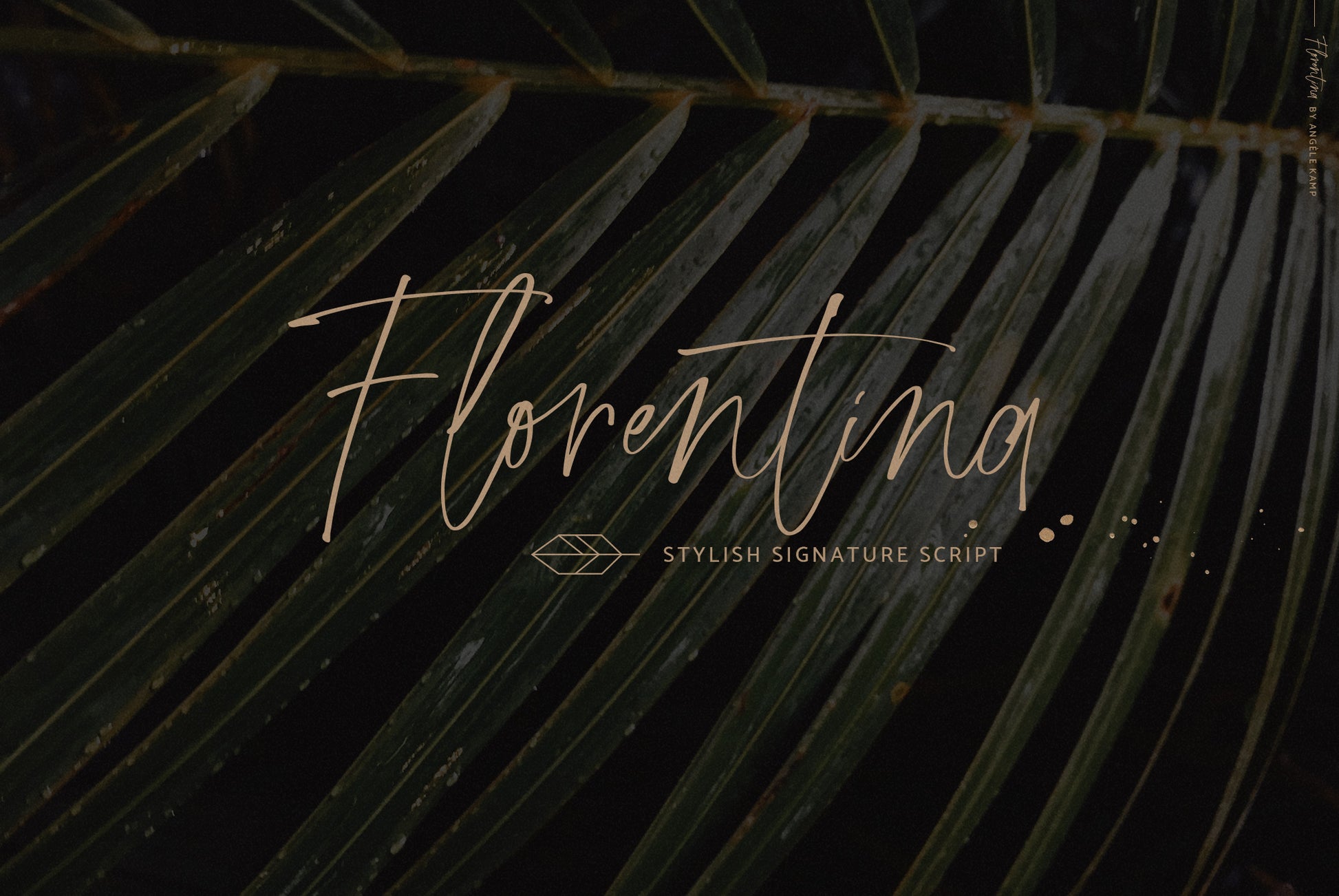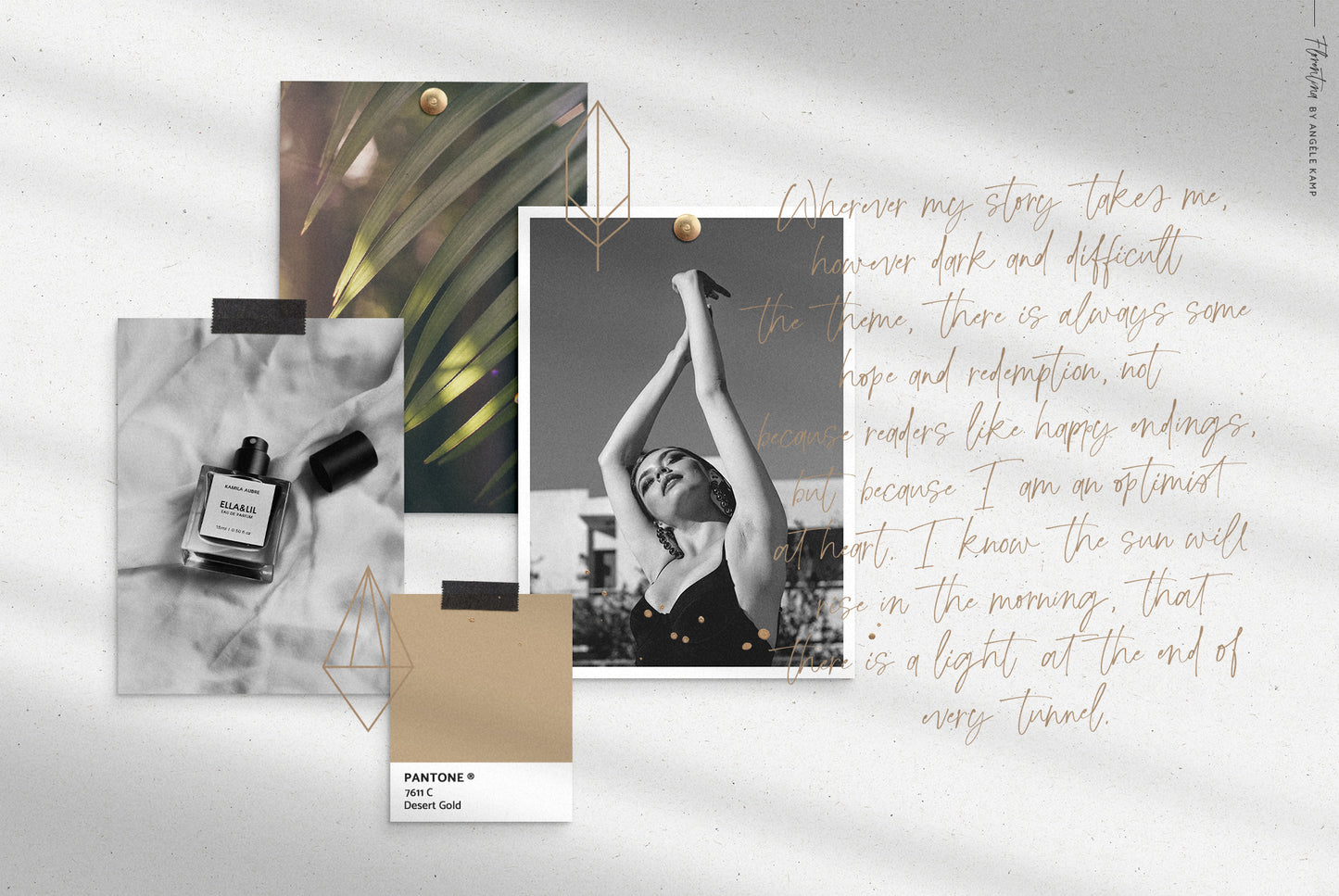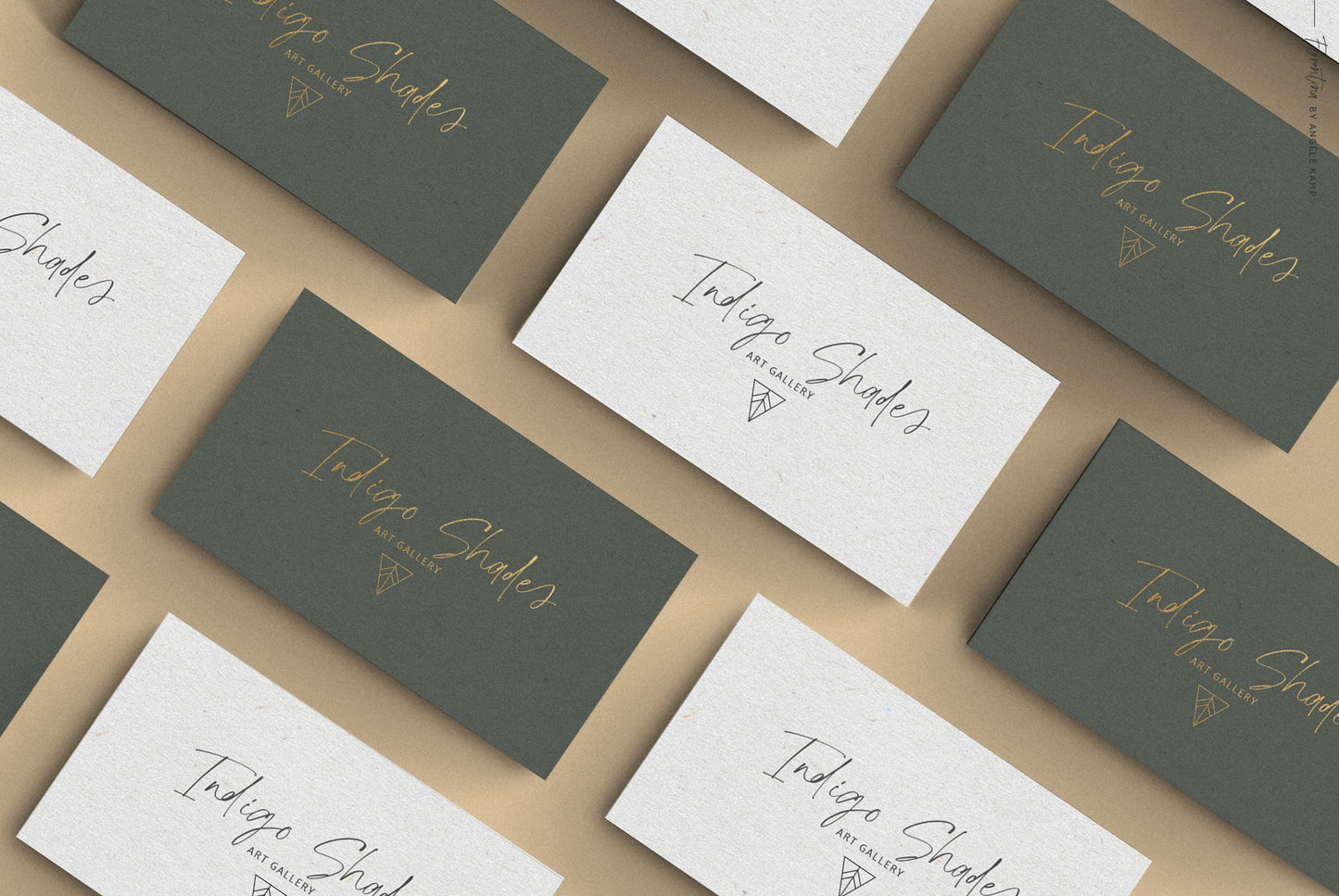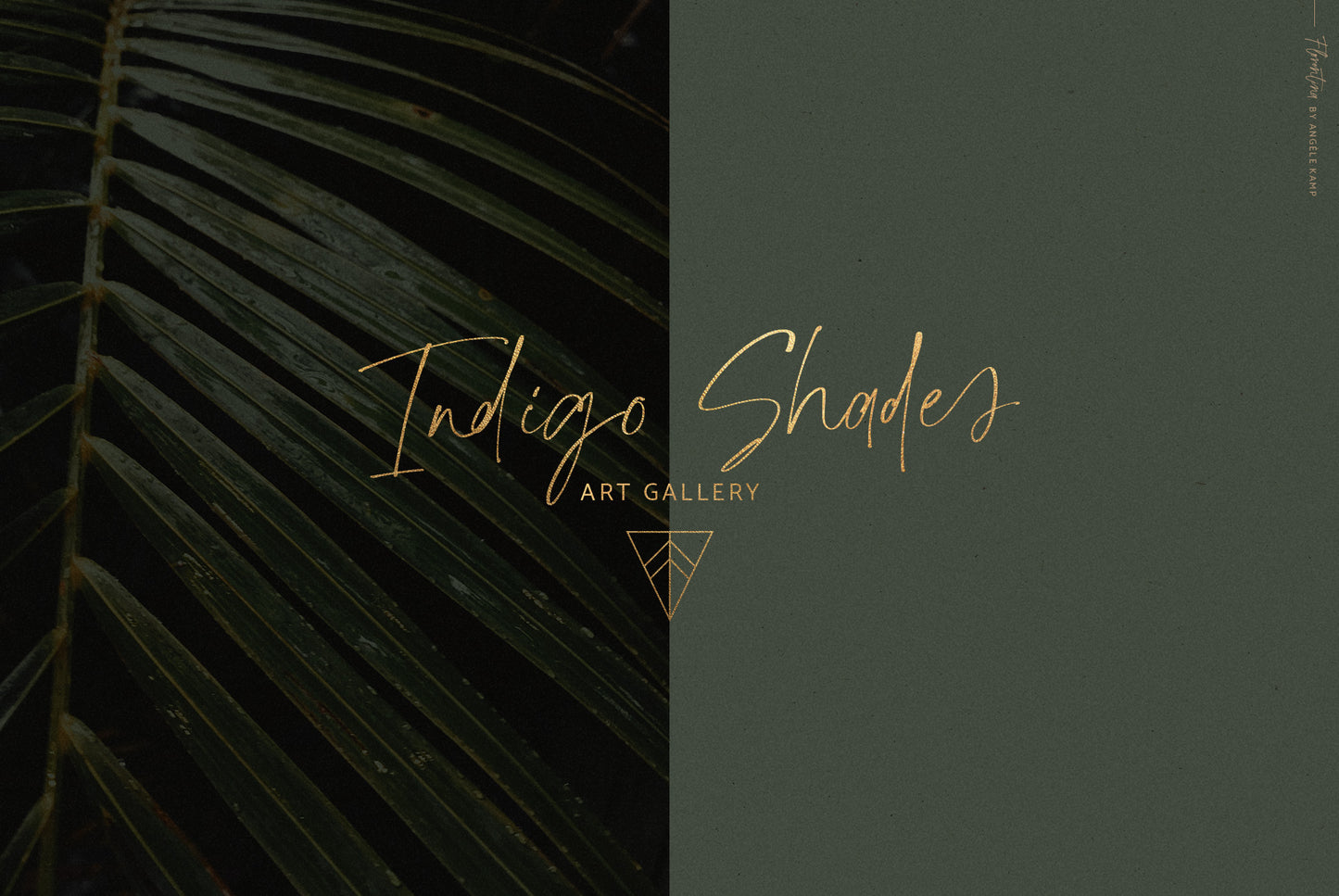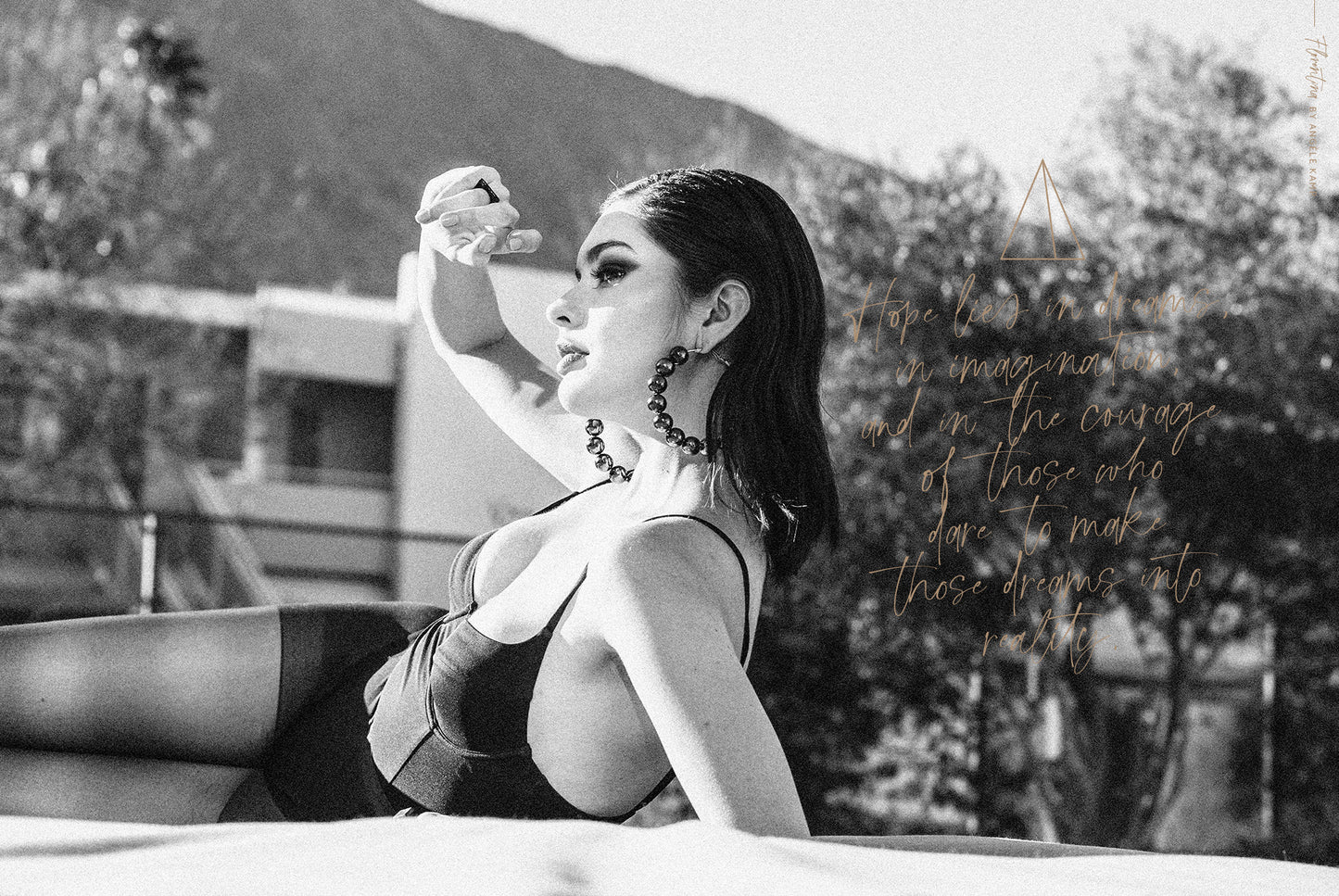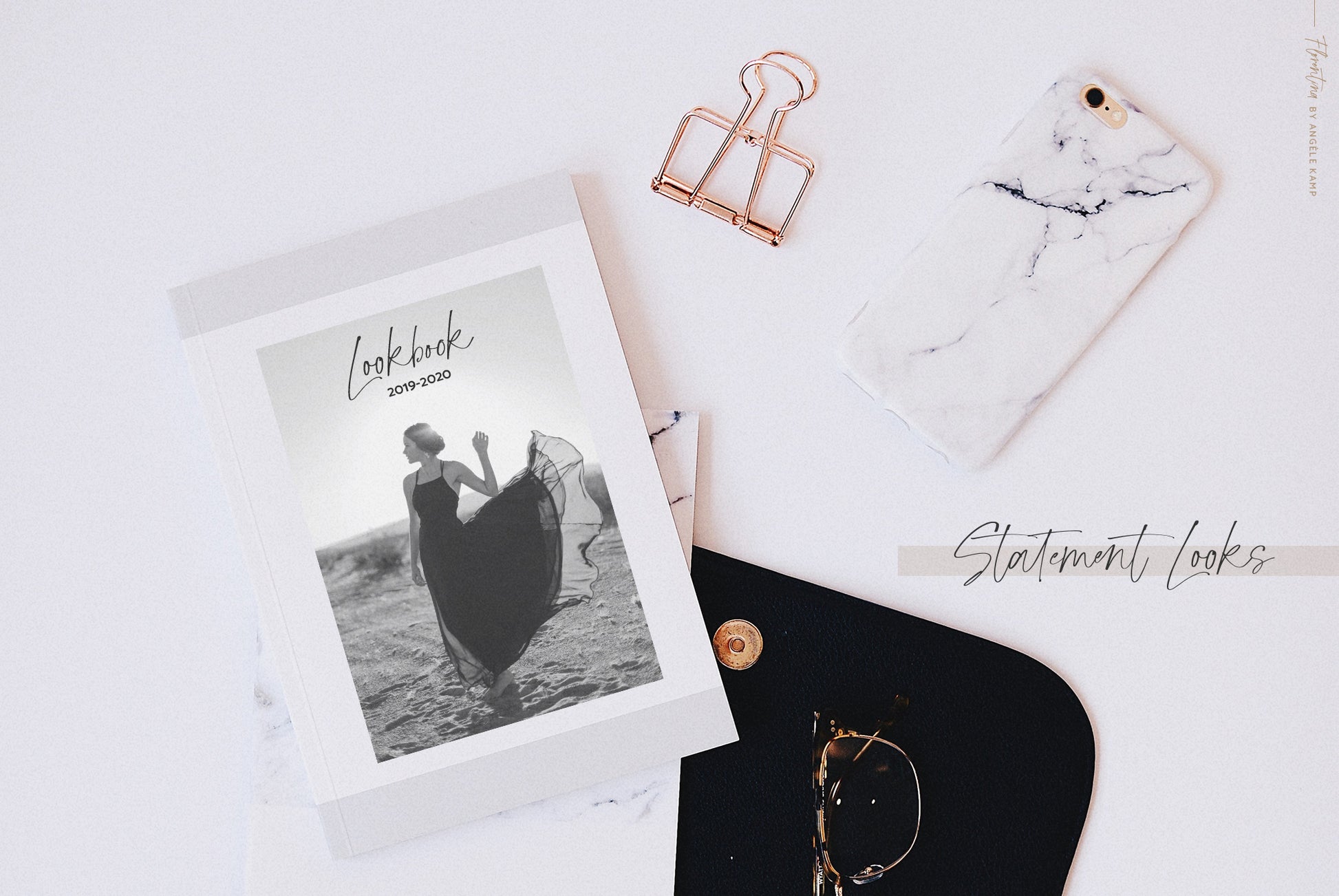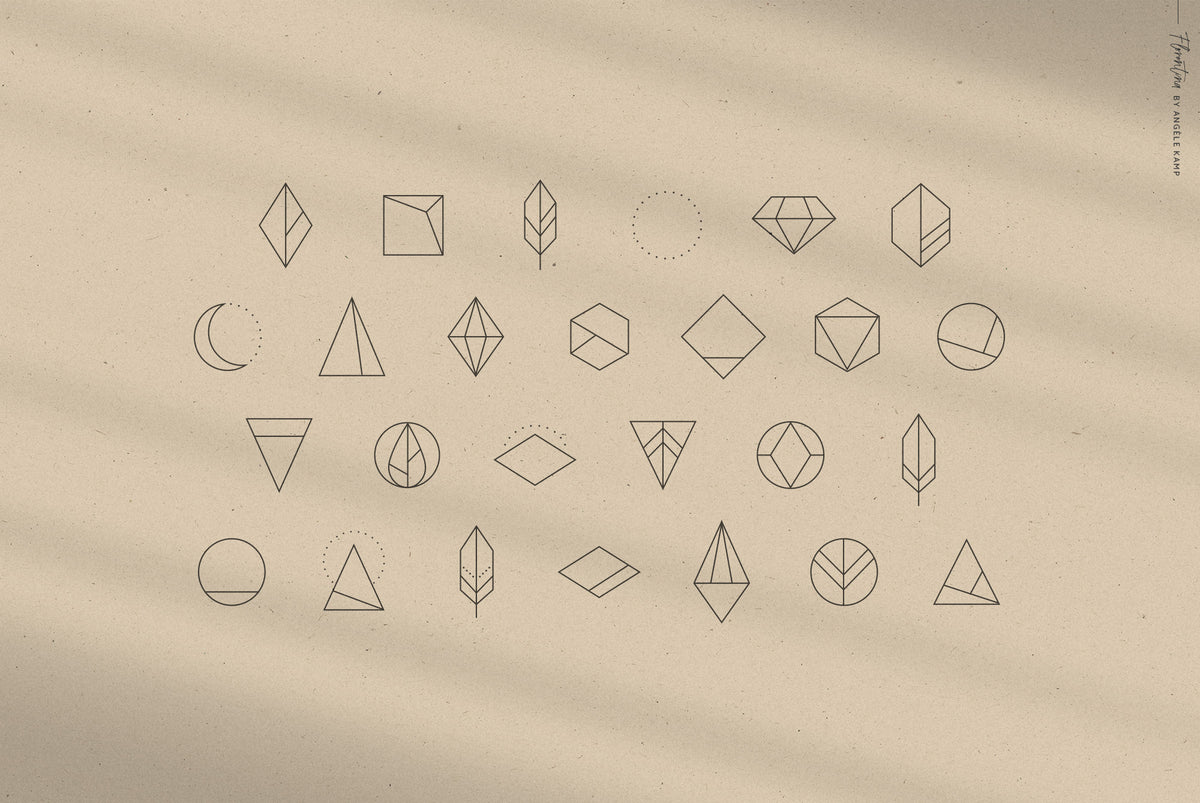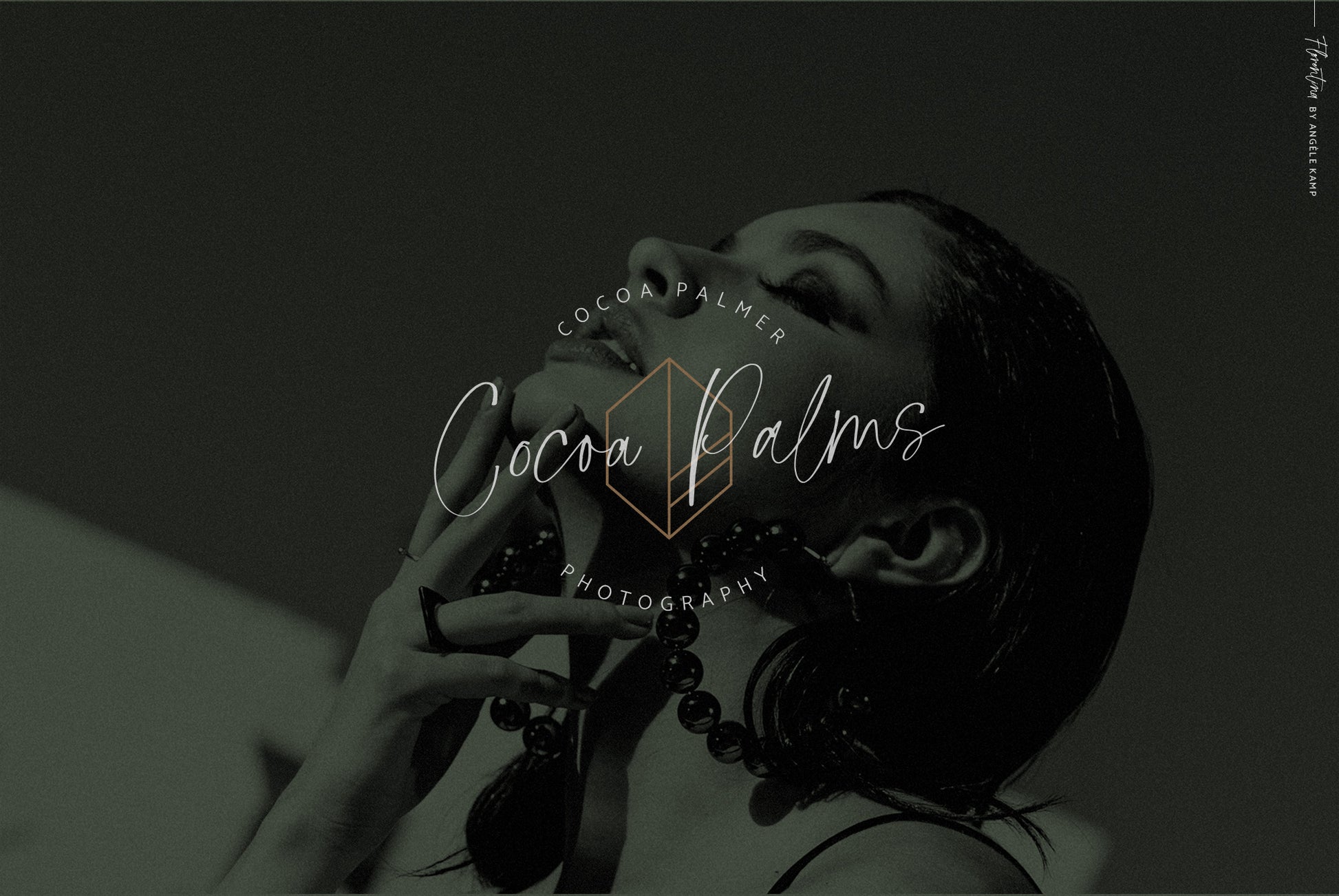
Florentina is a stylish signature script that will give instant flair to your designs. Combine the script with a stunning collection of geometric symbols and easily create logos and branding.
FLORENTINA SCRIPT (OTF, WOFF) A lovely script font that includes 48 ligatures letter combos that give you that gorgeous hand-lettered look. It also includes 27 alternate characters if you want to switch it up.
FLORENTINA SYMBOLS (OTF, PNGS, VECTOR EPS) The symbols font includes 26 geometric illustrations that can be used for all of your stunning creations. Once you install the symbols font, you can type out the letters a-z, A-Z, 1-10 or use the individual PNGs or vector eps file.